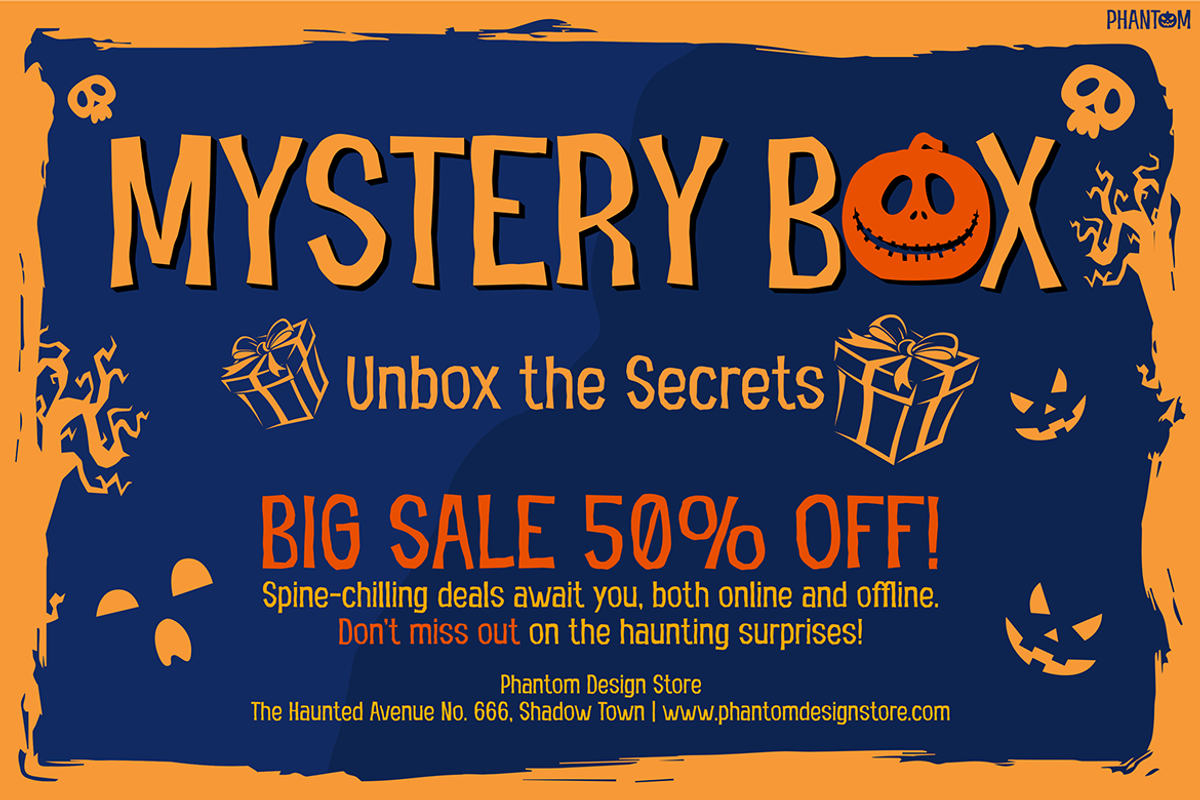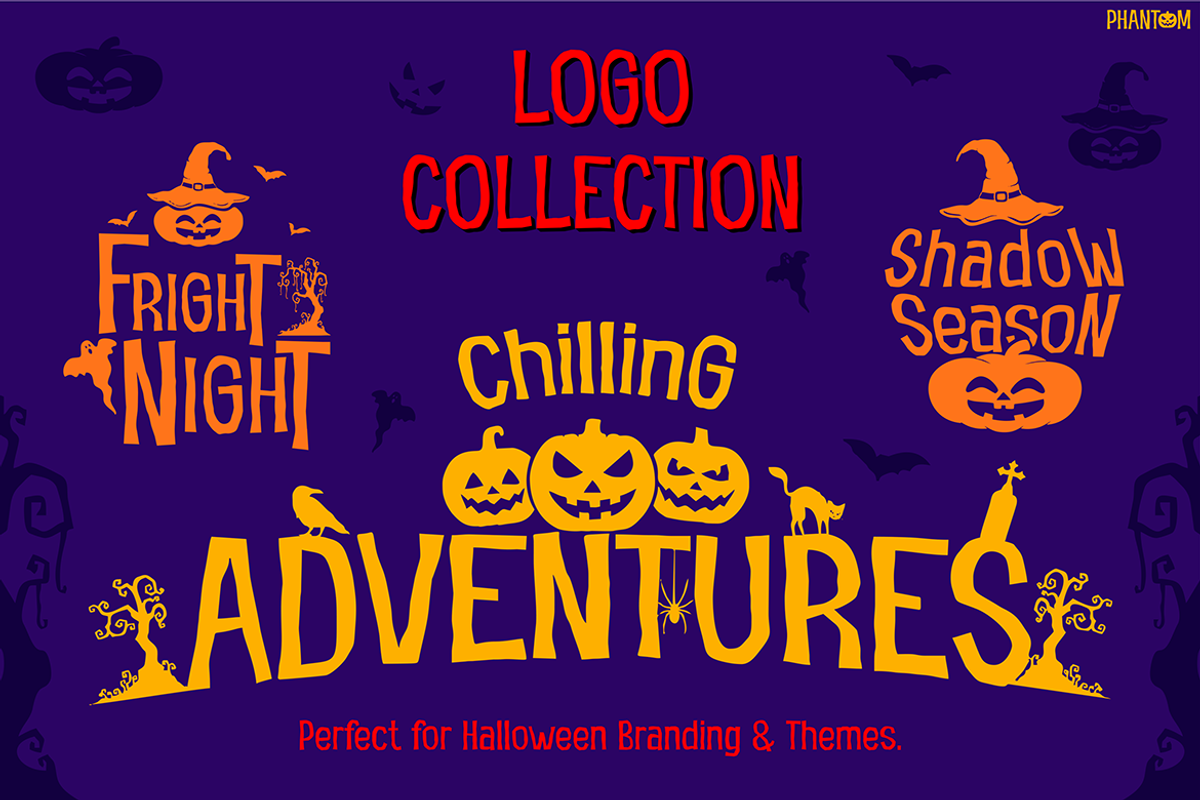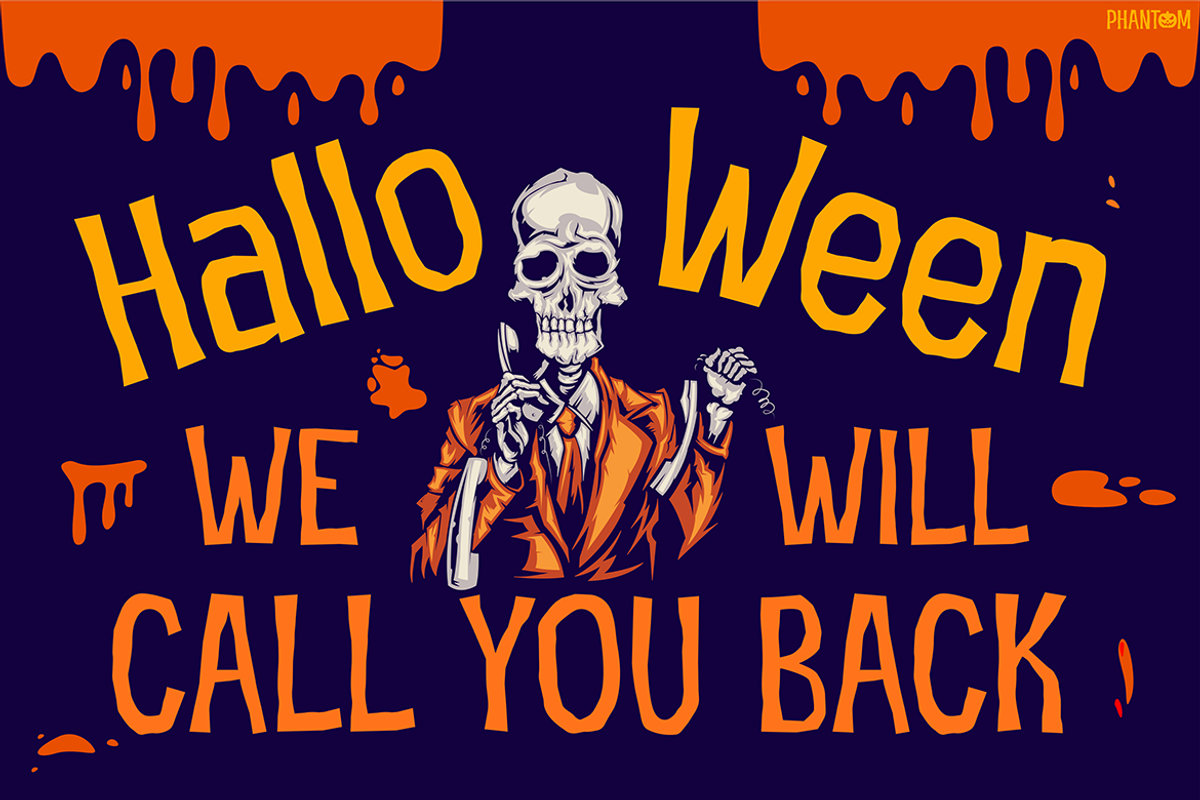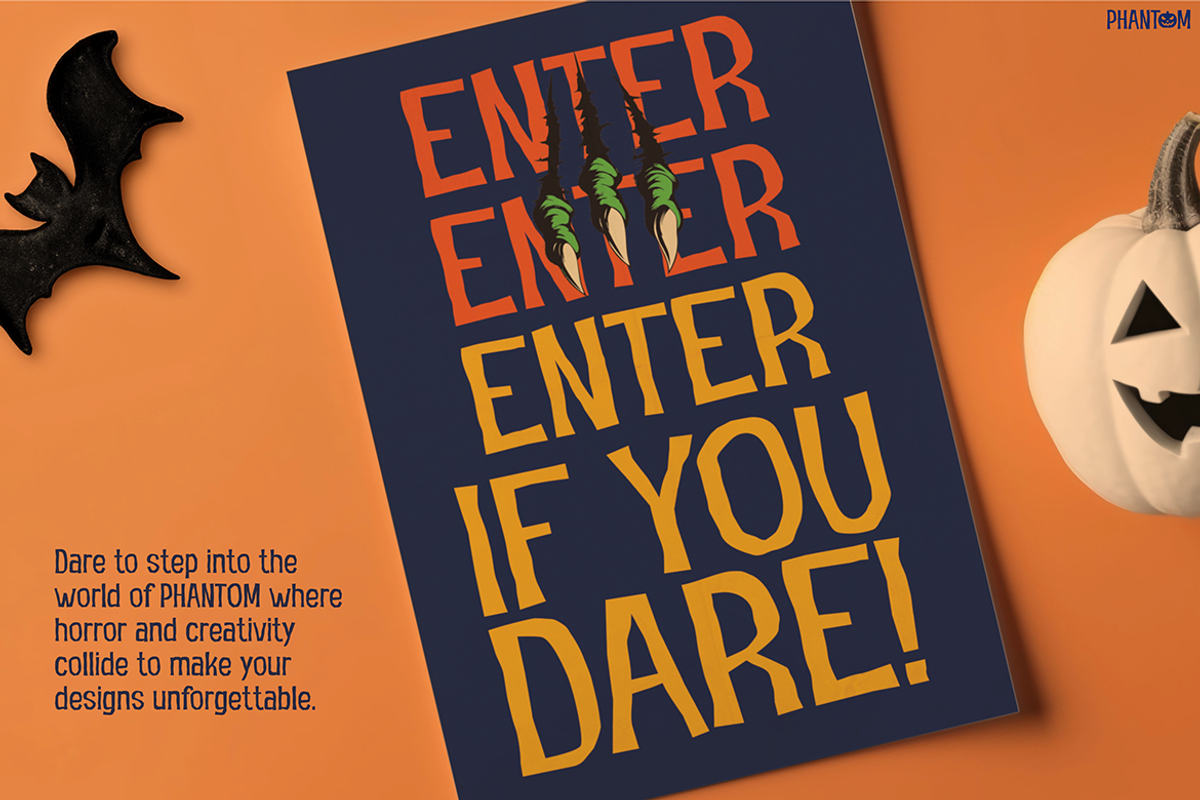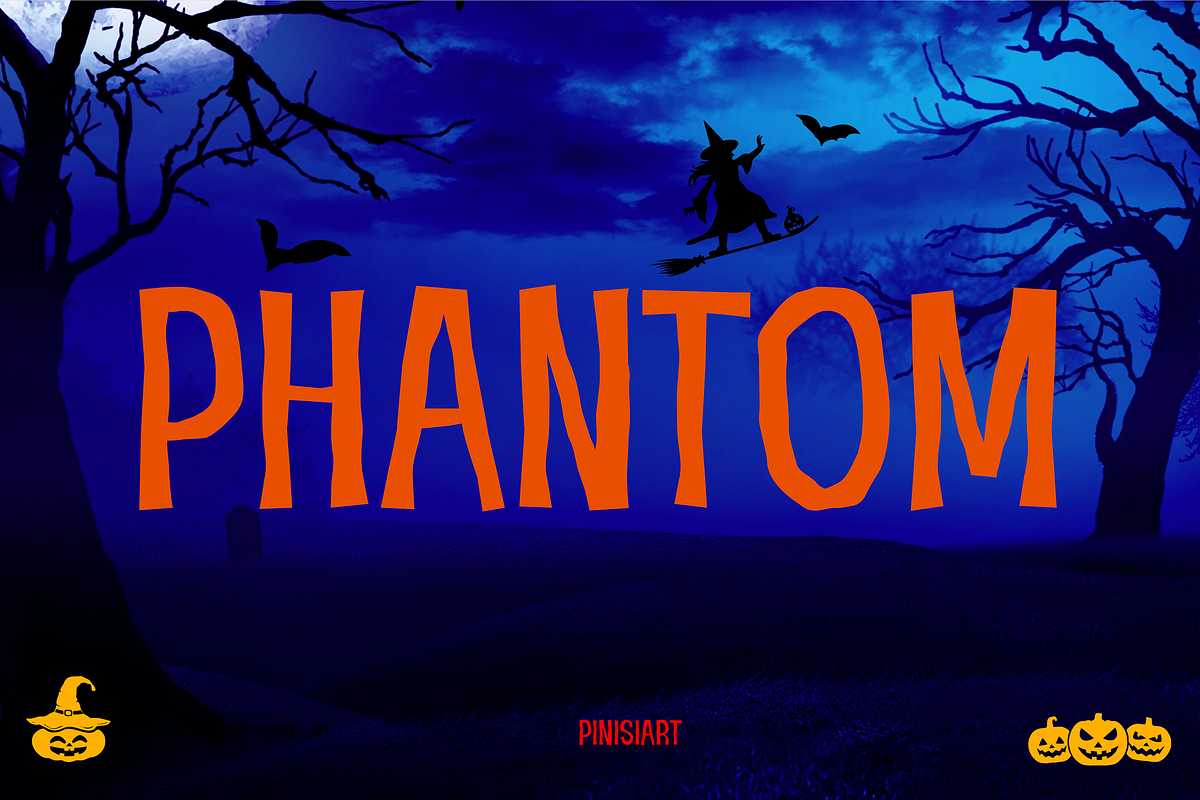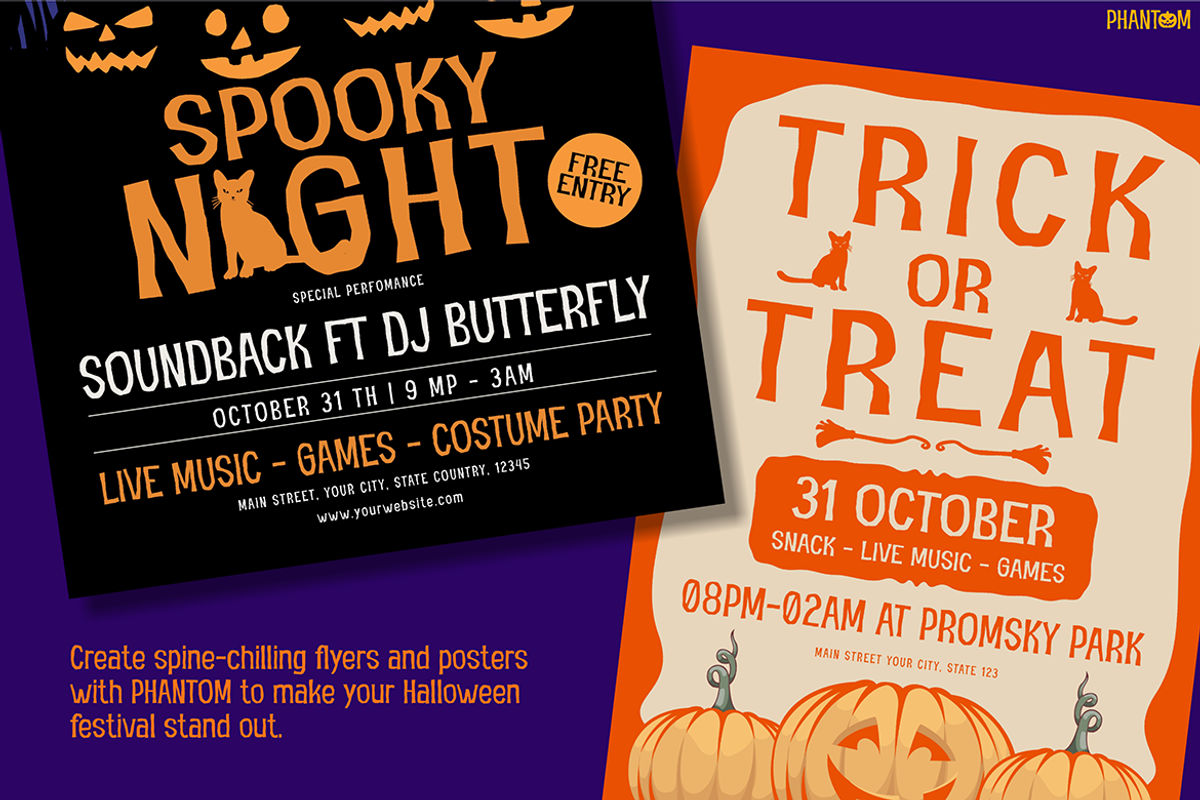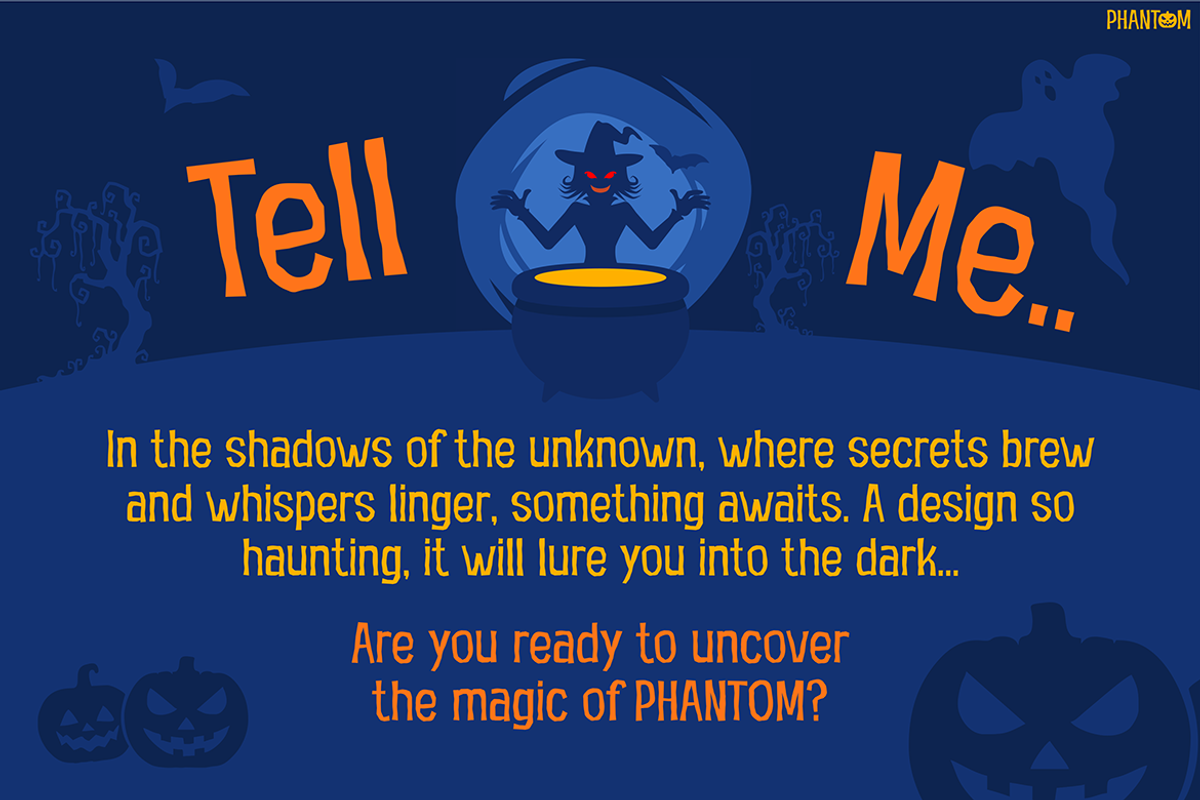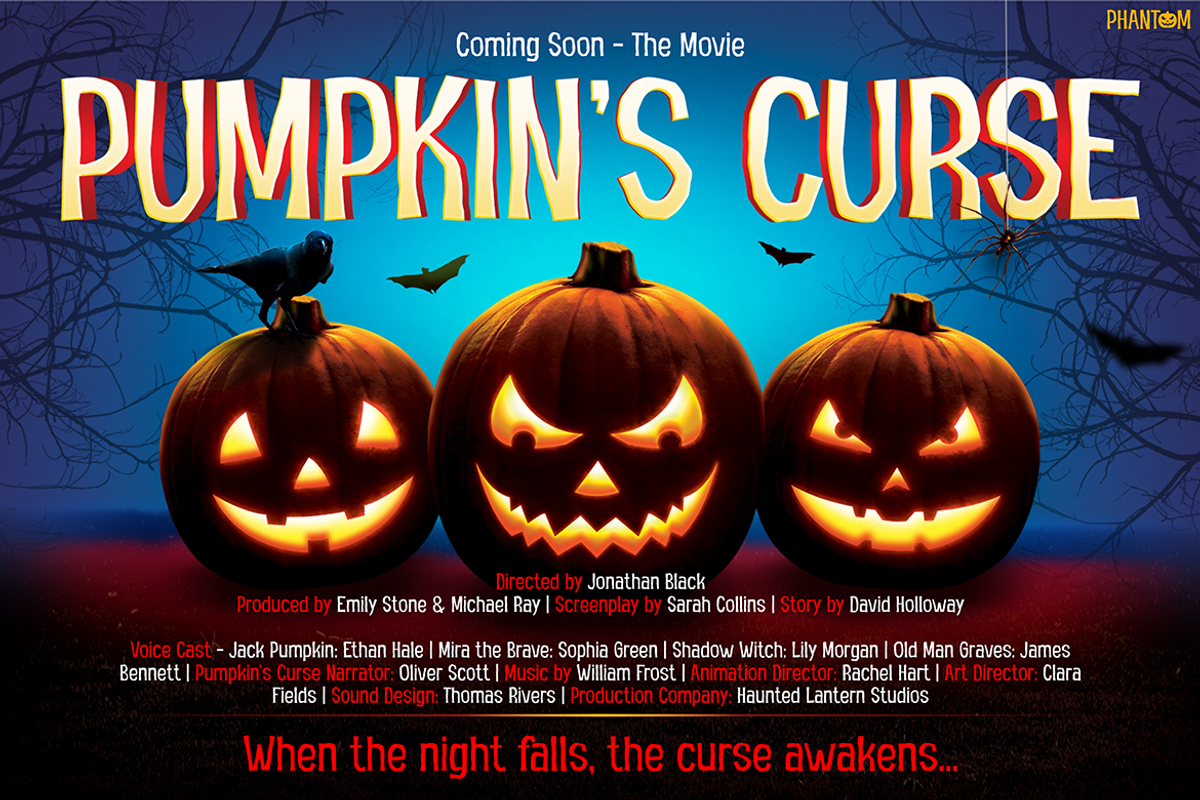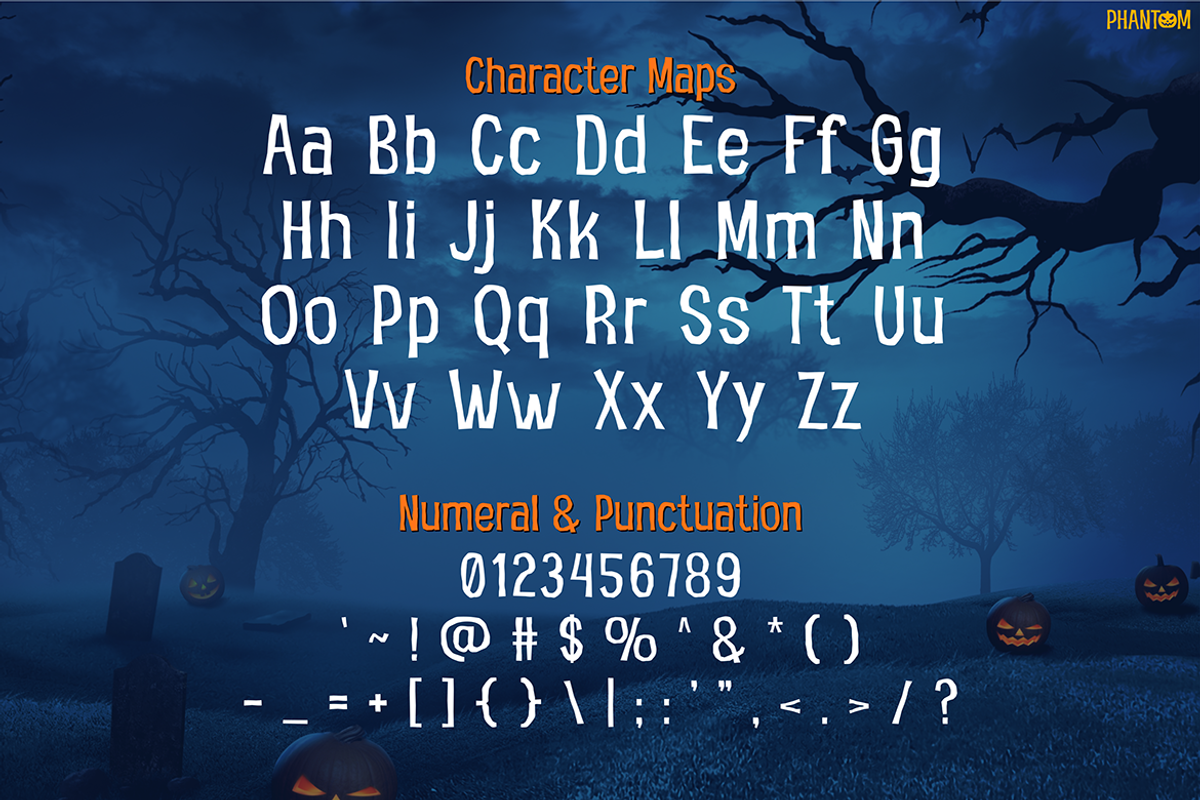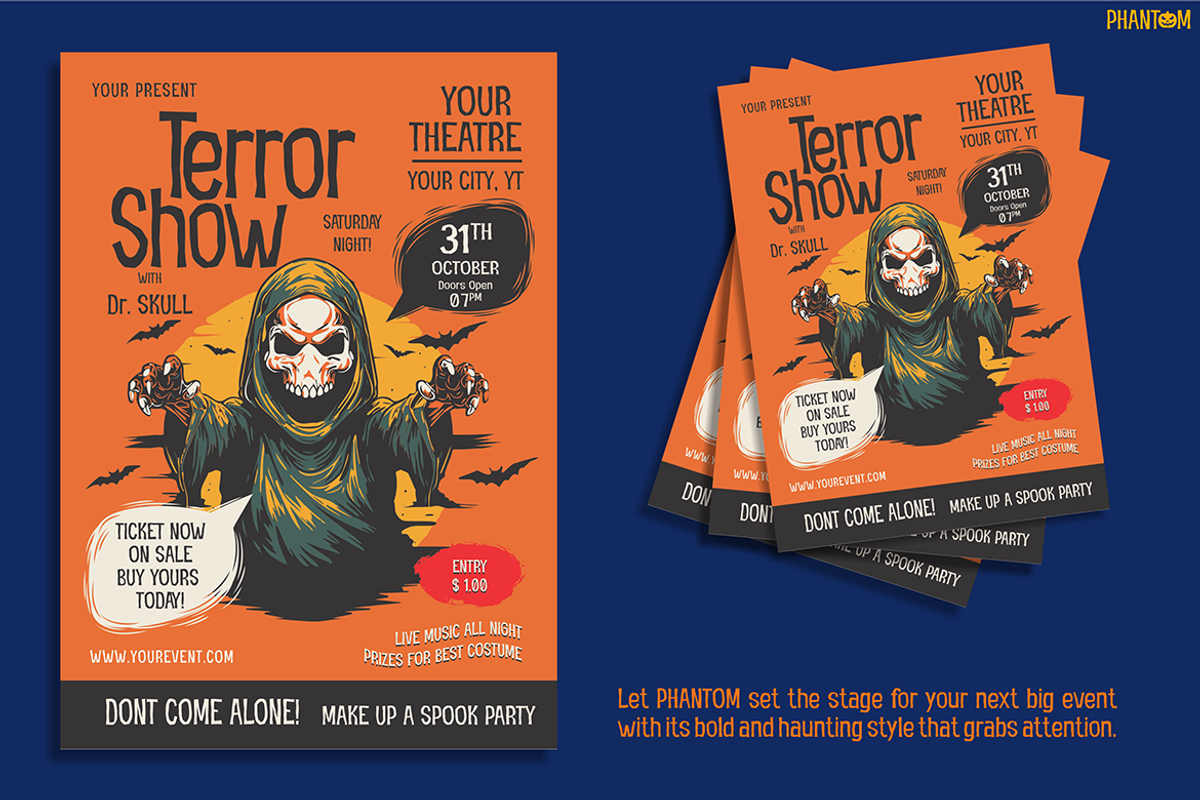
PHANTOM
Scary Font PHANTOM is a bold, eerie display typeface designed to evoke a chilling, Halloween-inspired atmosphere. Its irregular, jagged letterforms immediately create an unsettling vibe, making it perfect for projects that aim to thrill their audience. Moreover, the hand-drawn, imperfect edges add a sense of rawness and chaos, further enhancing its spooky character. With its eye-catching style, PHANTOM sets the tone for horror-themed designs, making it an excellent choice for seasonal events, party invitations, or haunted attractions.
Furthermore, the playful yet sinister look of Scary Font PHANTOM offers versatility for various creative uses. Its striking orange tones pair perfectly with dark backgrounds, amplifying the eerie effect. Additionally, whether you’re designing posters, banners, or social media graphics, PHANTOM ensures your message stands out. Its bold design not only guarantees readability but also maintains a haunting aesthetic, making it suitable for both digital and print media.